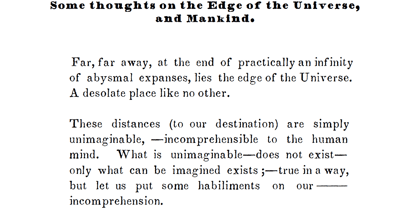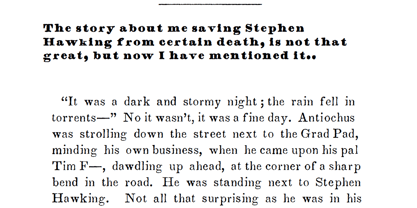
Southern Literary Mess
by Antiochus
The Southern Literary Mess Font Family was designed by Gary Stephens and published by Antiochus. Southern Literary Mess contains 8 styles and family package options.
Southern Literary Messenger font © is a revival of a defunct, obsolete, 1800s font made by Gary Stephens. I really hope you like the font. I use it myself for ResearchGate and other projects. Edgar Allan Poe published many of his great works in the Southern Literary Messenger (c. 1834 - 1864 ) and was, for a time, the Editor. The typeface is very clear and elegant. Each character printed is different,-- this mechanism produces the authentic feel. For example one "e" is different to another "e". When typing, the letters appear to permutate slightly before becoming fixed. Enjoy : ) Thank you! Arcanefonts/Antiochus.